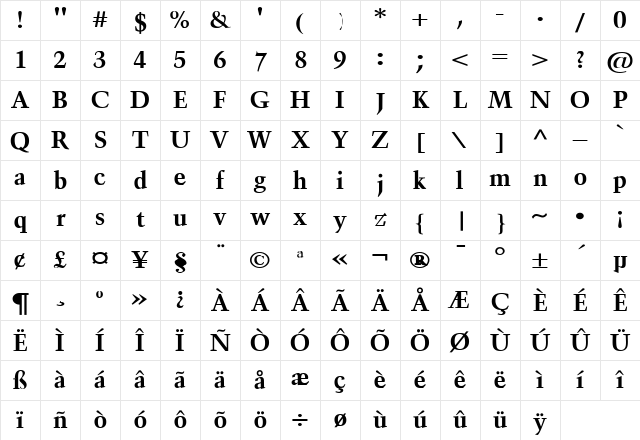
Horn Wide Bold Free Font
Horn Wide Bold
Horn Wide Family
Horn Wide Bold
Design Context for Horn Wide
Horn Wide is a composed and adaptable typeface that performs quietly and consistently across a wide range of design contexts. Its bold stroke weight gives it real presence on the page.